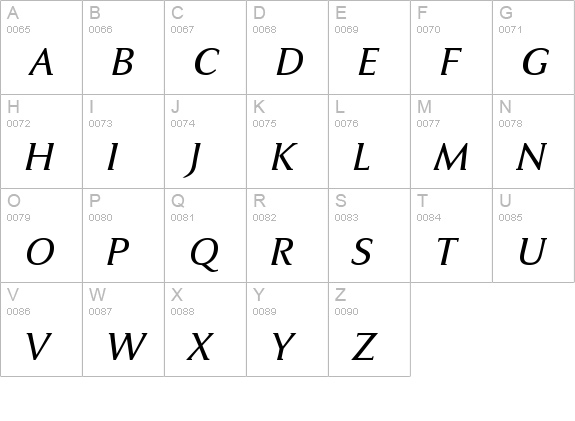
JaguarJC-BookItalic Font Details
Introducing JaguarJC-BookItalic, a stunning and elegant font that effortlessly blends sophistication with a touch of modernity. Its sleek and slanted design adds a unique flair to any project, making it perfect for both professional and creative endeavors. With its delicate curves and precise detailing, JaguarJC-BookItalic captures attention and leaves a lasting impression. Whether used in branding, advertising, or editorial design, this font exudes confidence and refinement, ensuring your message is conveyed with utmost clarity and style. But what makes JaguarJC-BookItalic even more remarkable is that it is freely available to download at FontsMarket.com. Yes, you heard it right - this exceptional font can be yours without any cost, allowing you to elevate your designs without breaking the bank. By offering JaguarJC-BookItalic for free, FontsMarket.com empowers designers, artists, and enthusiasts with a world-class typography tool that is accessible to all. This font can be easily integrated into your creative arsenal, allowing you to explore endless possibilities and unleash your artistic vision. So why wait? Take advantage of this incredible opportunity and download JaguarJC-BookItalic today from FontsMarket.com. Enhance your projects, captivate your audience, and make a lasting impact with this remarkable font. Experience the freedom of creativity with JaguarJC-BookItalic - the font that sets you apart.